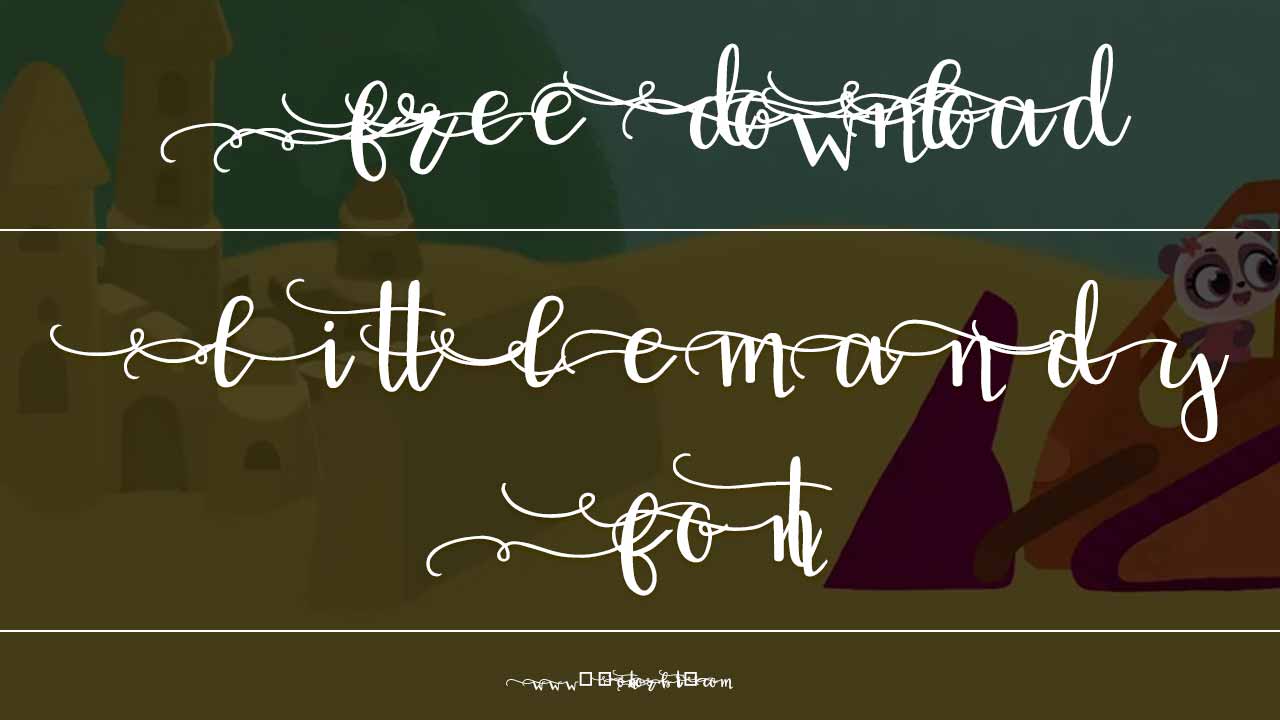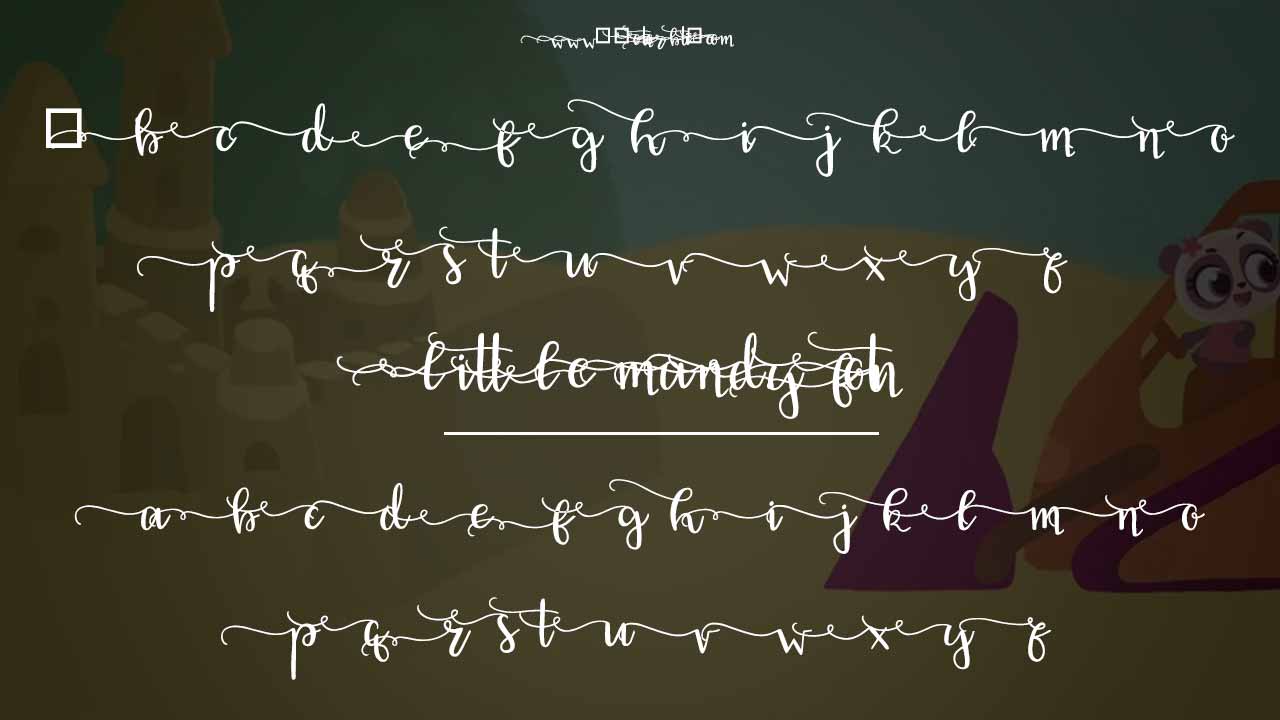
Little Mandy Font, designed by Junik Studio, brings an undeniable charm to any design project. With its stylish, calligraphic flair, this font offers a playful yet elegant touch that instantly elevates your work. Whether you’re crafting book covers, creating logos, designing posters, or making social media posts, Little Mandy enhances your creativity with its delightful swashes. It’s like adding the perfect finishing touch to your design — playful, artistic, and uniquely captivating.
Why Choose Little Mandy Font?
I’ve always looked for fonts that blend style and personality. Little Mandy is exactly that. It’s a calligraphic font that doesn’t just sit there. It adds whimsy and sophistication to anything you use it on. What makes it even better is its versatility. Whether you’re working on a casual social media post or a more professional brand logo, it fits perfectly. Plus, it’s free for personal use, which is great for those working on personal projects or creating for fun. However, if you’re diving into business, keep in mind that a commercial license is required.
Font Family Includes:
- Little Mandy Regular
- Little Mandy Left
- Little Mandy Right
Each version has its own personality, and the swashes give you the flexibility to get creative. The “Left” and “Right” swashes are a nice touch to add extra flair and movement to your designs. I think of them like the “extra sprinkles” on a cupcake—unnecessary, but they make everything that much more delightful.
Best Uses For Little Mandy Font
Little Mandy shines in several different settings. Here’s where I think it really excels:
- Logos & Branding – Need a logo that stands out? Little Mandy’s elegant script and unique swashes can give your brand a playful yet professional vibe. It’s the kind of font that makes you say, “Yeah, that’s the one.”
- Posters & Advertisements – Want your poster to catch someone’s eye? Little Mandy makes text pop while still maintaining an air of sophistication. It’s like the perfect mix of fun and functional.
- Social Media Posts – If you’re a content creator, this font is your new best friend. Whether you’re posting on Instagram or Facebook, Little Mandy adds that “wow” factor that helps your content stand out in a crowded feed.
- Book Covers & Invitations – Elegant yet accessible, Little Mandy works beautifully on book covers or event invitations. Whether you’re designing a romantic novel cover or a whimsical wedding invite, it adds grace and creativity.
- T-Shirt & Merchandise Design – Planning to sell custom merch or design for print-on-demand? Little Mandy is great for shirts, hats, and even tote bags. It’s playful, stylish, and sure to attract attention.
- Email Campaigns & Websites – Little Mandy gives your digital presence a touch of personality for a website or email campaign that feels personable and fresh.
- Shop Signage & Marketing – If you own a shop, using this font in signage and marketing material will draw people in. It’s modern and stylish with just the right hint of fun.
Best Font Pairings For Little Mandy
Pairing fonts is always an art, and Little Mandy works beautifully with a variety of other fonts to bring your design to the next level. I’ve experimented with a few combinations, and here’s what I’ve found works best:
- Playful Look: Pair with Raleway for a clean, sans-serif contrast to Little Mandy’s playful calligraphy. The balance makes your design feel light and approachable.
- Elegant Branding:Playfair Display complements Little Mandy perfectly for a more sophisticated vibe. Together, they offer a timeless, elegant look with a bit of personality.
- Modern Design:Montserrat works like a charm if you’re aiming for something sleek and contemporary. It’s geometric lines complement Little Mandy’s fluid curves, resulting in a modern aesthetic.
6.What Are The Best Font Pairings For Little Mandy?For the best complementary combinations, pair it with fonts like Montserrat, Playfair Display, or Raleway.
8.Does Little Mandy Font Come In Different Styles? Yes! It comes in Regular, Left, and Right swashes, giving you plenty of creative options to play with.